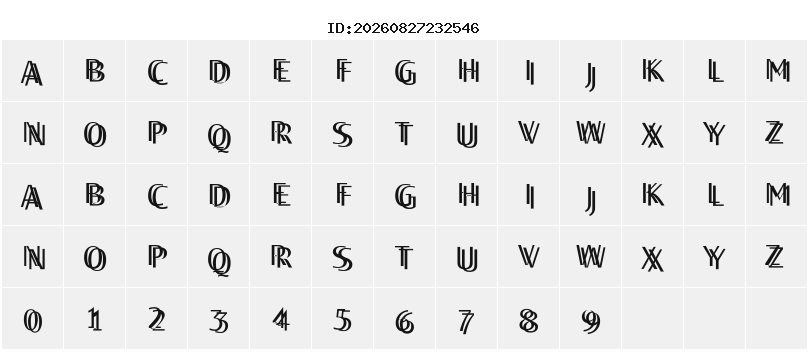
TwilightCaps Preview
• Font Name: TwilightCaps
About TwilightCaps.ttf
TwilightCaps.ttf is a modern, elegant sans-serif font designed for ultimate readability and visual harmony. Perfect for branding, headlines, web design, and print materials.